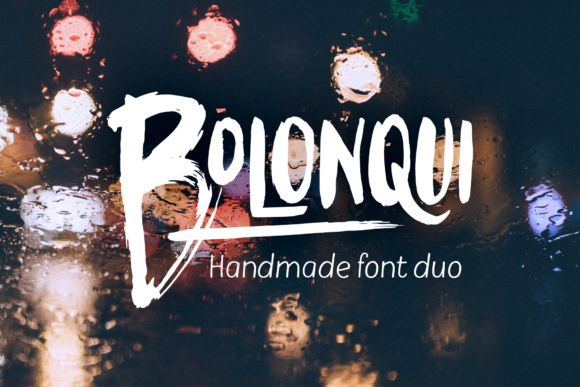
Behold Bolonqui Duo Font, a revolutionary display font that promises to revolutionize your design projects with its extraordinary visual impact. Crafted with meticulous attention to detail by the talented magofonts, this font duo is specially designed to evoke emotions and establish a profound connection with your audience.
Unleash your creativity and explore the world of art with Bolonqui Duo Font. Experience the seamless fusion of brush and script fonts, striking the perfect balance between structured elegance and playful spontaneity. Create enchanting branding, captivating social media posts, eye-catching logos, and stunning invitations that speak volumes.
Immerse yourself in the captivating world of Bolonqui Duo Font. Its charismatic brush strokes exude authenticity, adding an irresistible organic touch to your designs. Embrace the harmony of its flowing script partner, adding a touch of grace and sophistication that will leave a lasting impression.
Prepare to be amazed by the versatility of Bolonqui Duo Font. From wedding invitations that radiate romance to posters that ignite passion, this font duo defies limitations. Its ability to effortlessly adapt to various projects makes it a versatile tool in the hands of designers, creative professionals, and font enthusiasts alike.
Embrace the power of Bolonqui Duo Font and witness the transformation of your designs. Its aesthetically pleasing characters dance across the page, captivating your audience with their charm and uniqueness. Let your creativity soar as you craft designs that elicit joy, inspire dreams, and spark conversations.